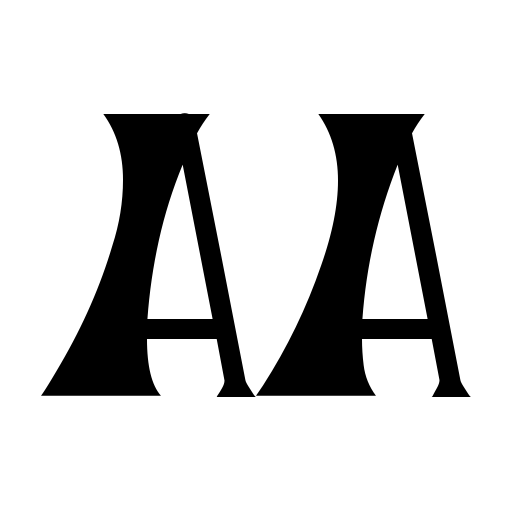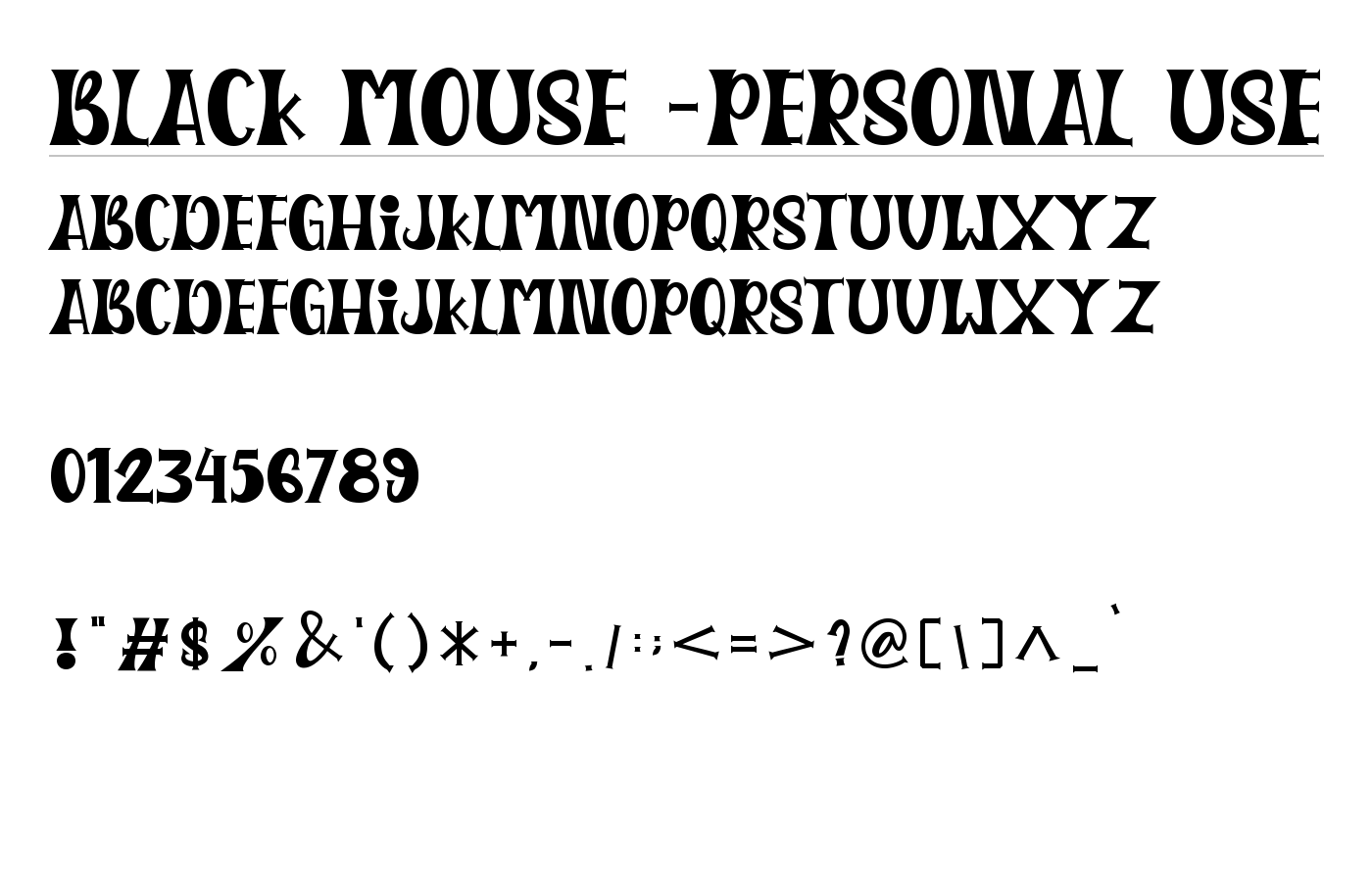
Black Mouse is a bold, decorative serif font with a whimsical and vintage flair, featuring high contrast strokes and unique, exaggerated serifs. Its playful yet slightly gothic character makes it ideal for eye-catching headlines, logos, and creative packaging where a dramatic, nostalgic atmosphere is desired. This font works best in display settings, adding personality and charm to designs aiming for a distinctive, artistic vibe.
Black Mouse -Personal Use Font
About Black Mouse -Personal Use Font